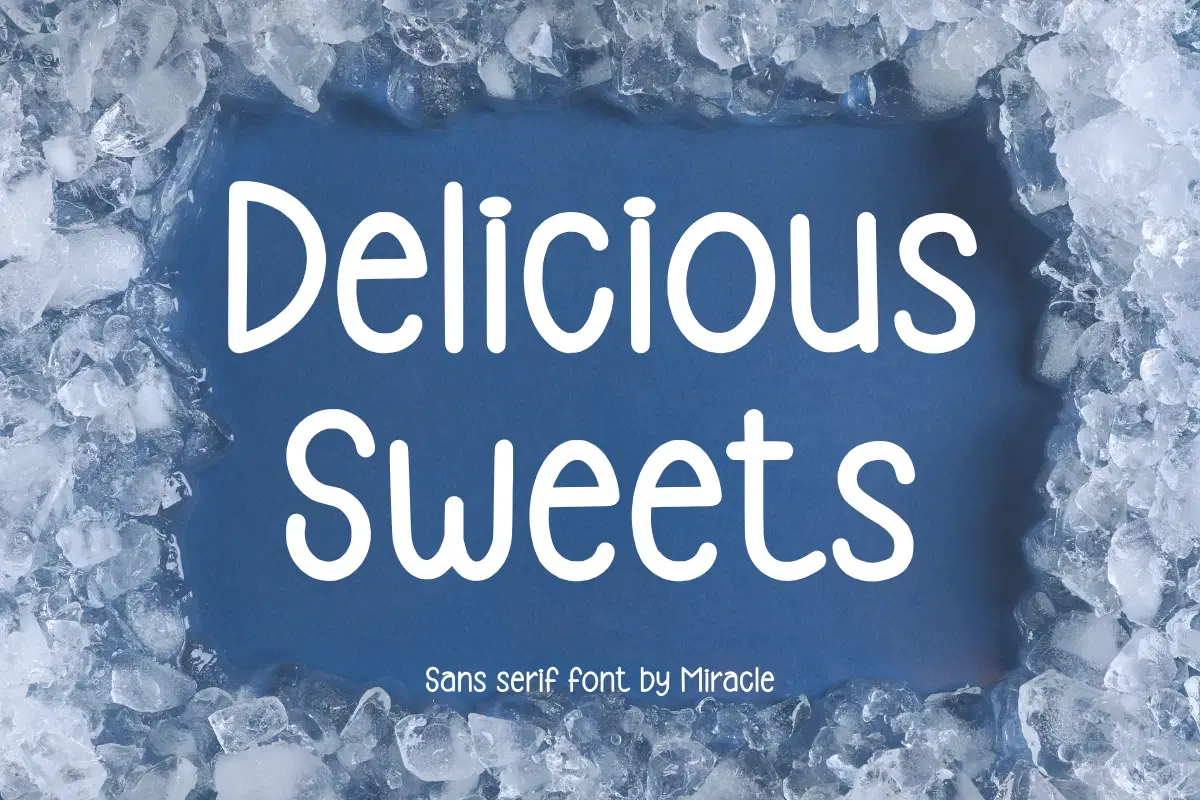
Satisfy your design cravings with Delicious Sweets, a whimsical sans serif font by Miracle. Featuring soft, rounded terminals and a friendly, hand-crafted aesthetic, this typeface is designed to bring warmth and joy to your creative projects.
Whether you're working on food packaging, bakery branding, lifestyle blogs, or social media graphics, Delicious Sweets offers excellent legibility with a charming, approachable personality. Its tall, clean lines and soft edges make it a versatile choice for both digital and print media, giving your message a heartfelt, "homemade" feel.